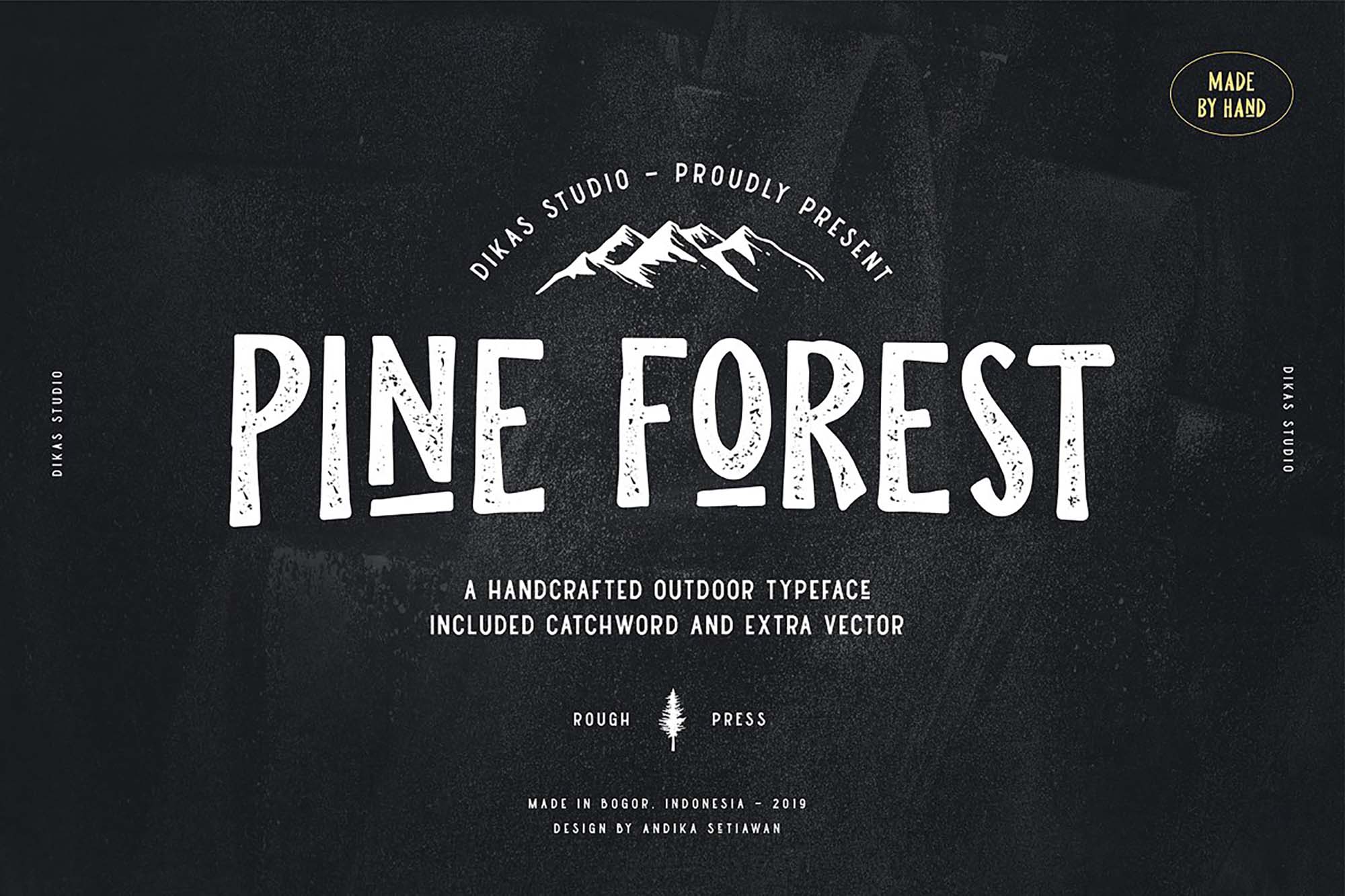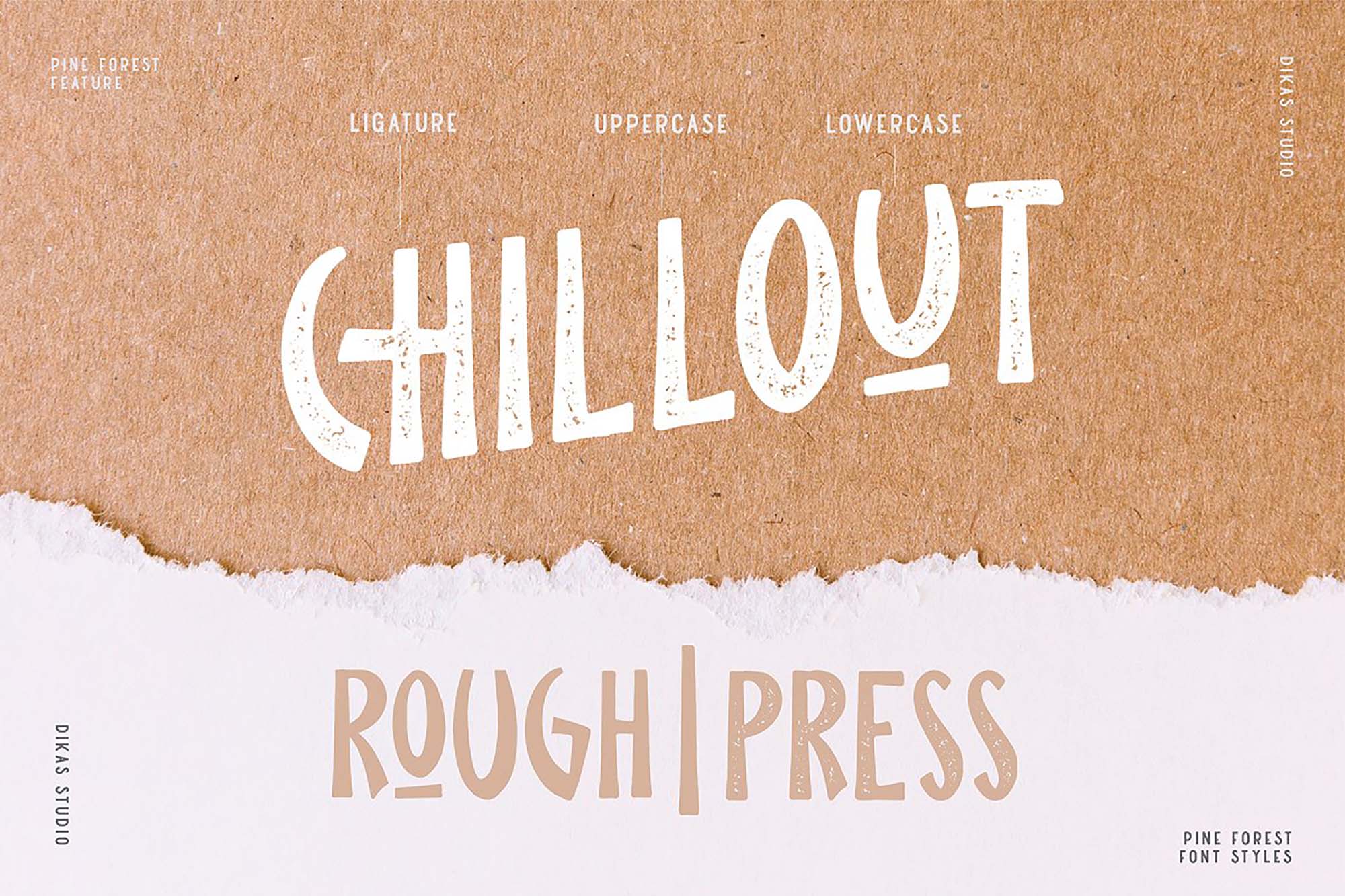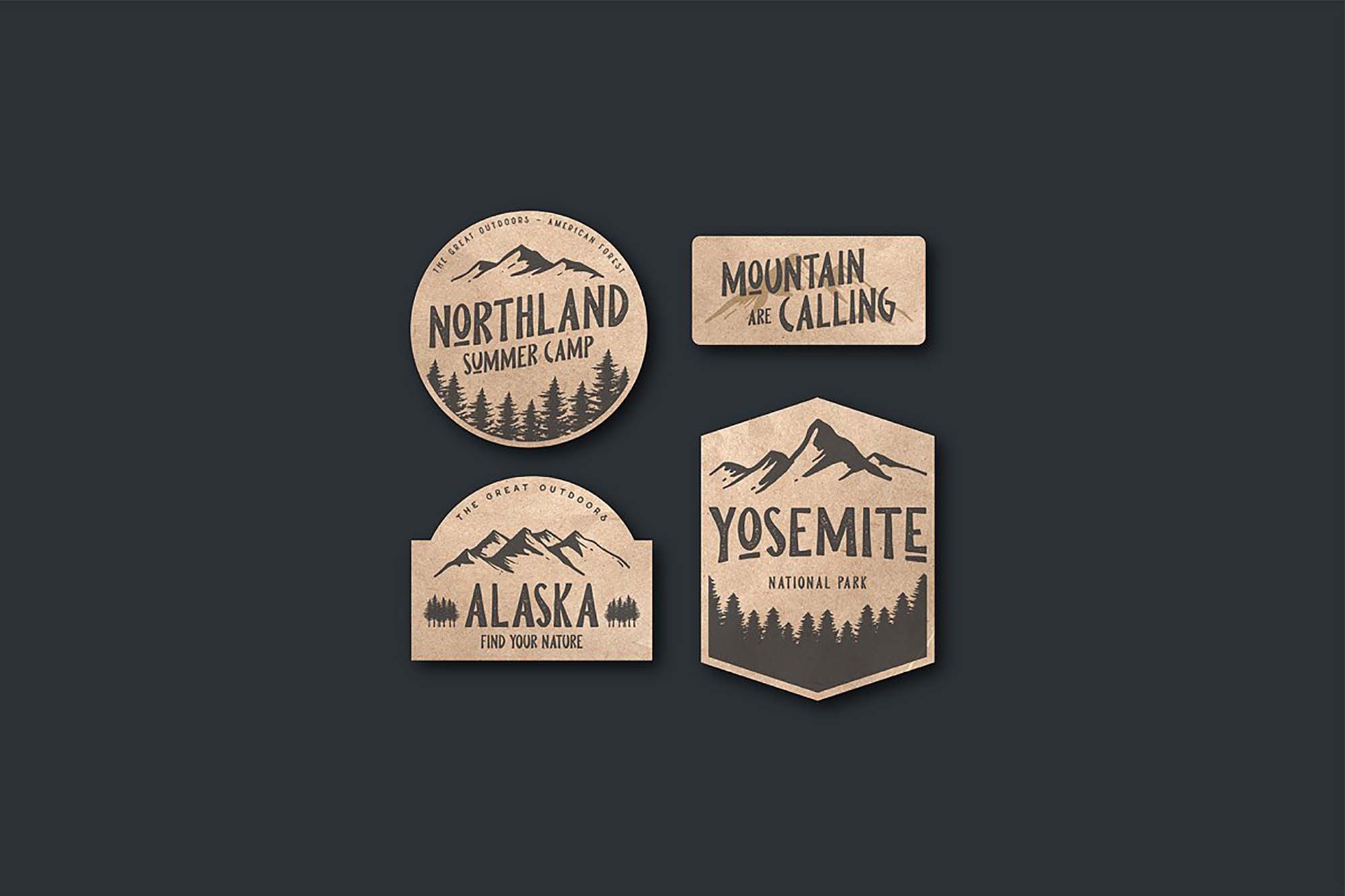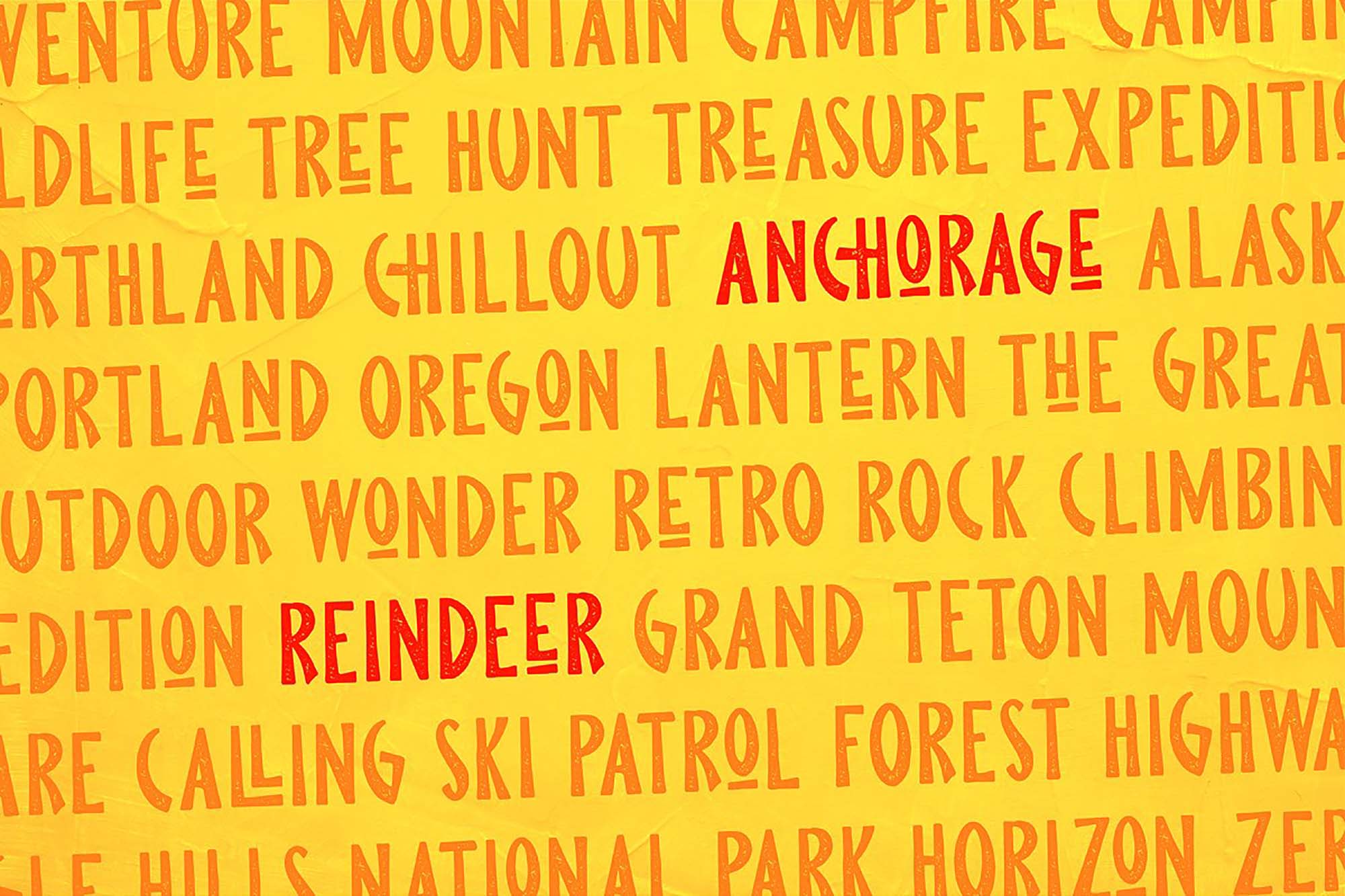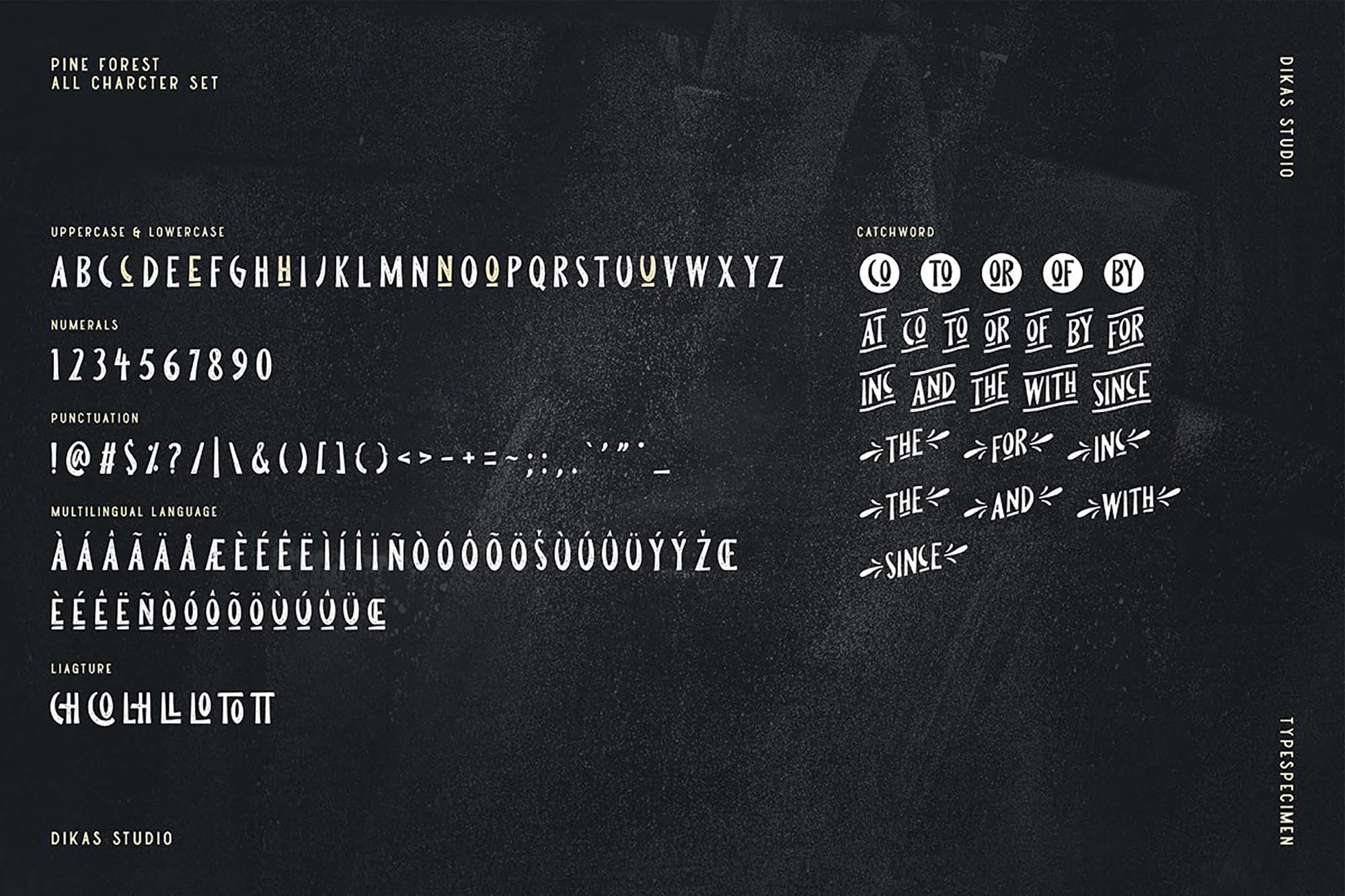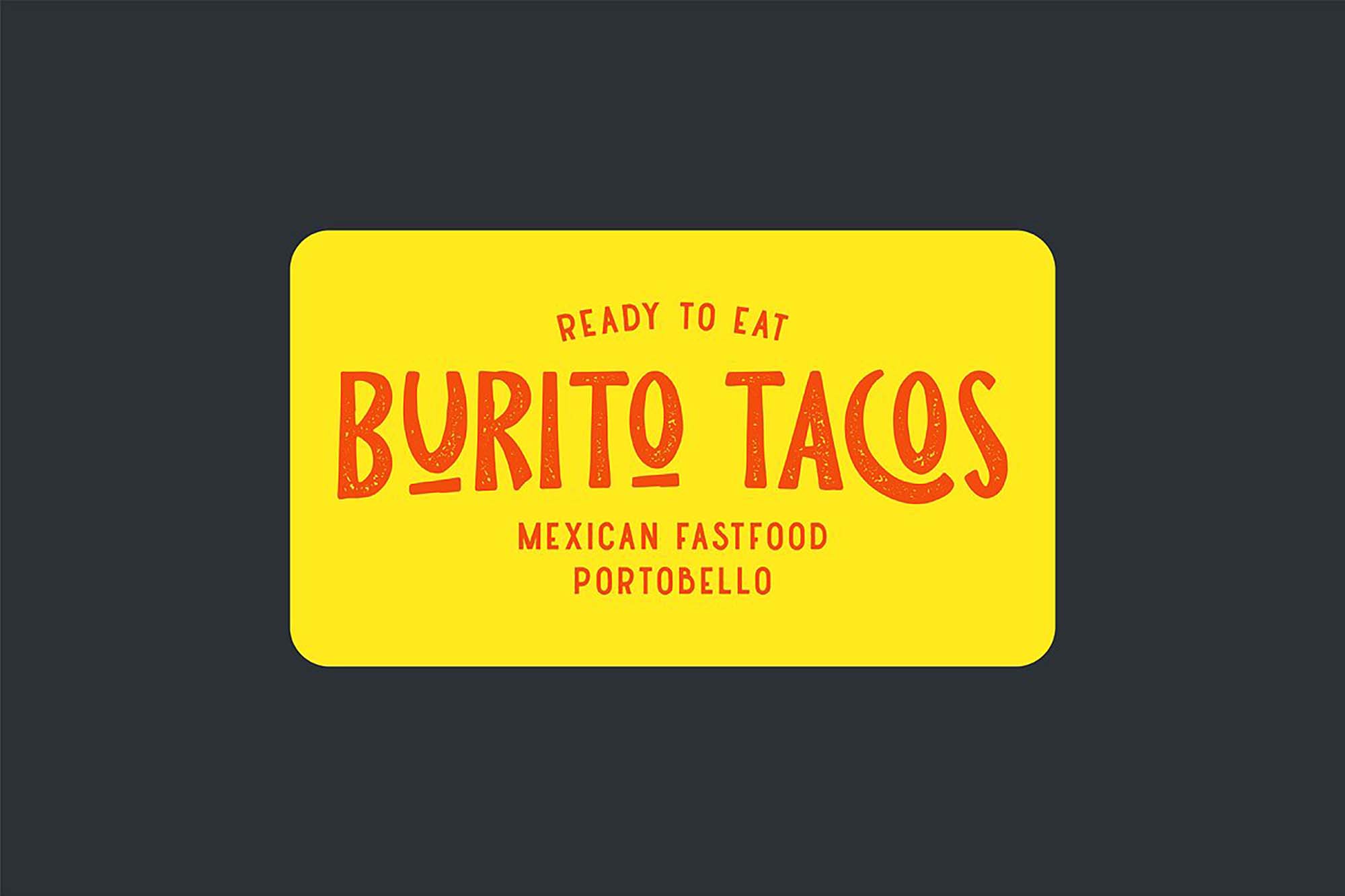
Pine Forest Outdoor Typeface Font
This is a unique stylish Pine forest outdoor typeface font. This font is perfect for adding a personal charm to your logos, branding, social media, advertisements, invitations, product designs, product packaging, etc. Have fun using it!